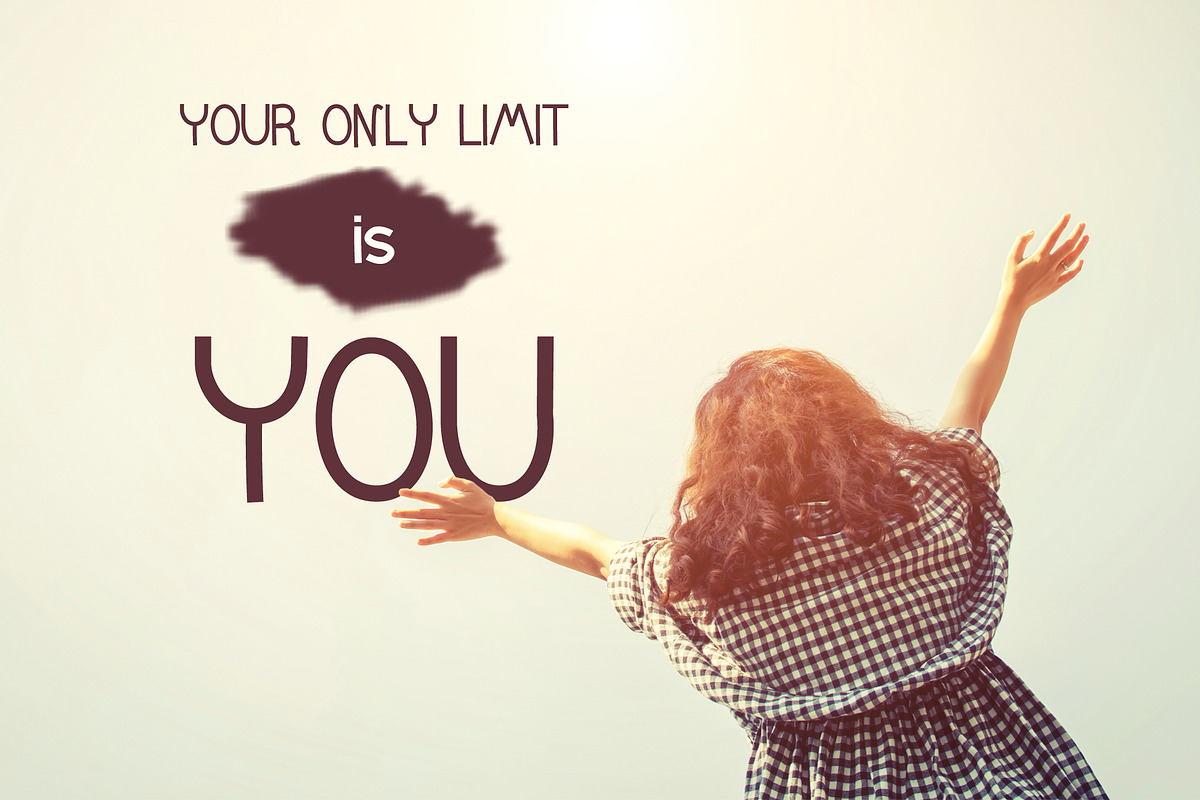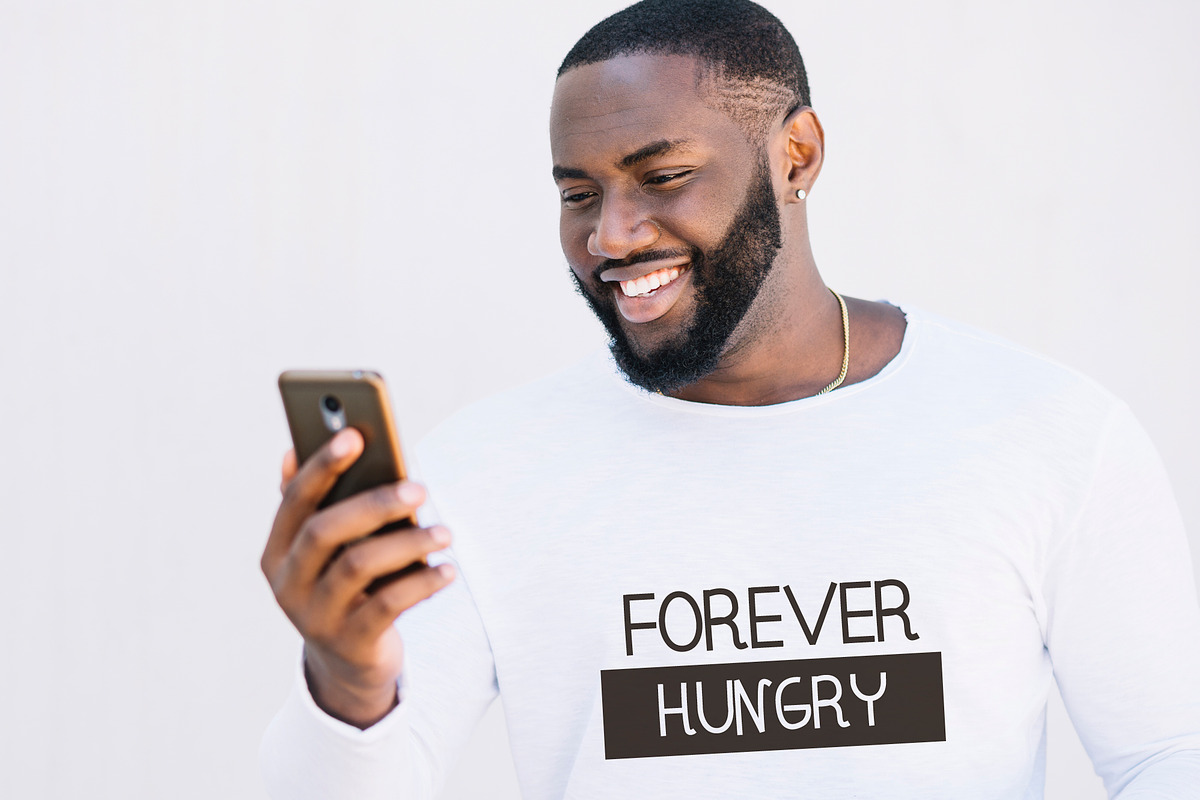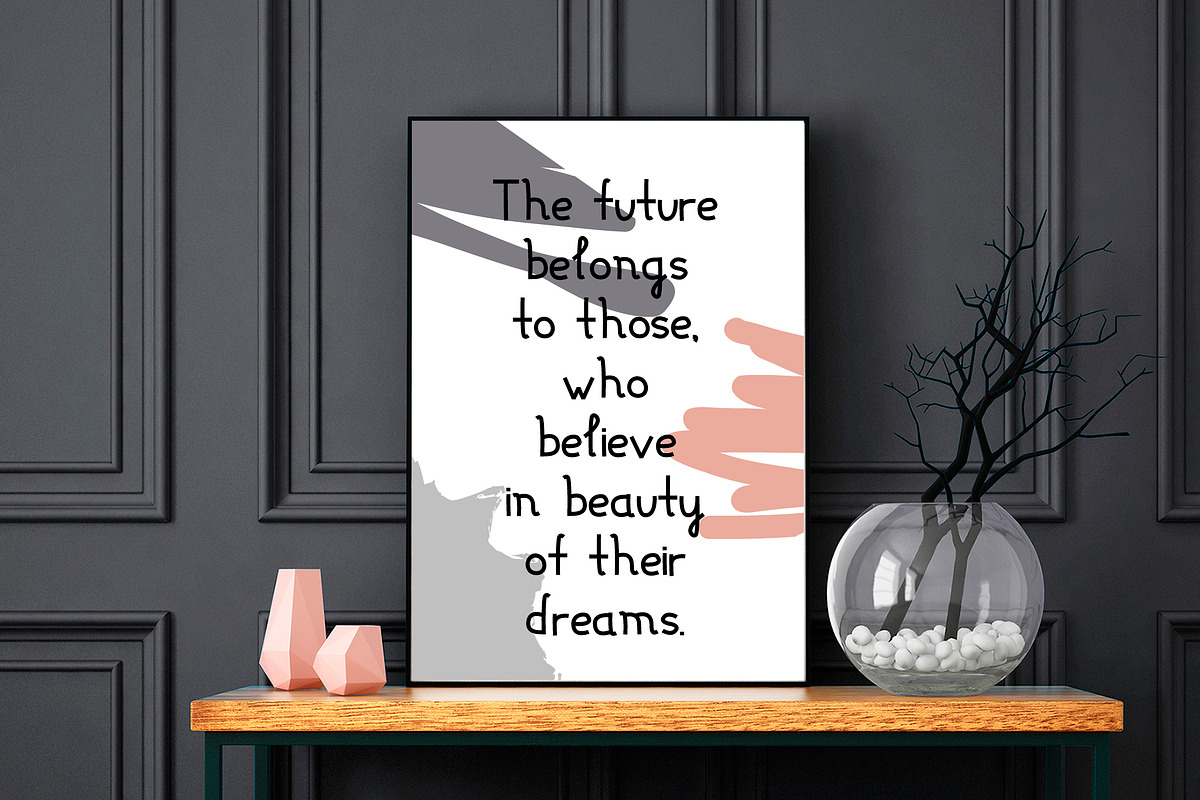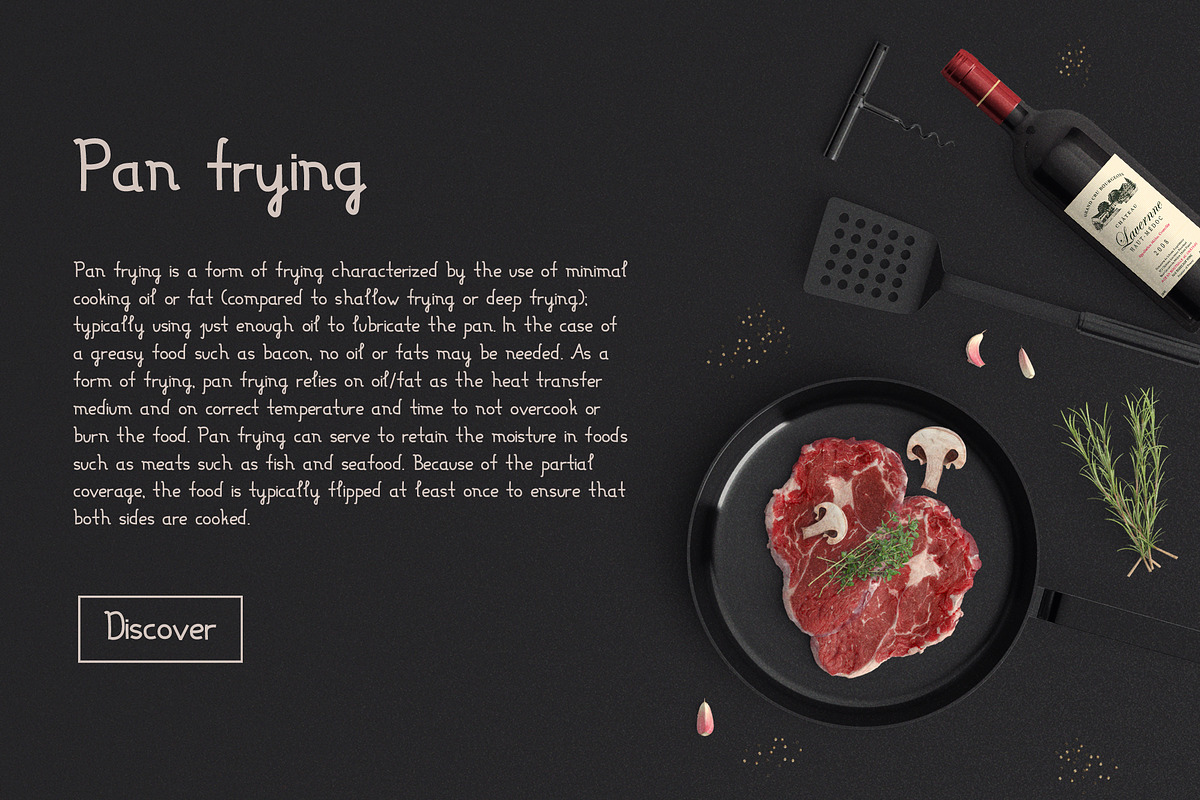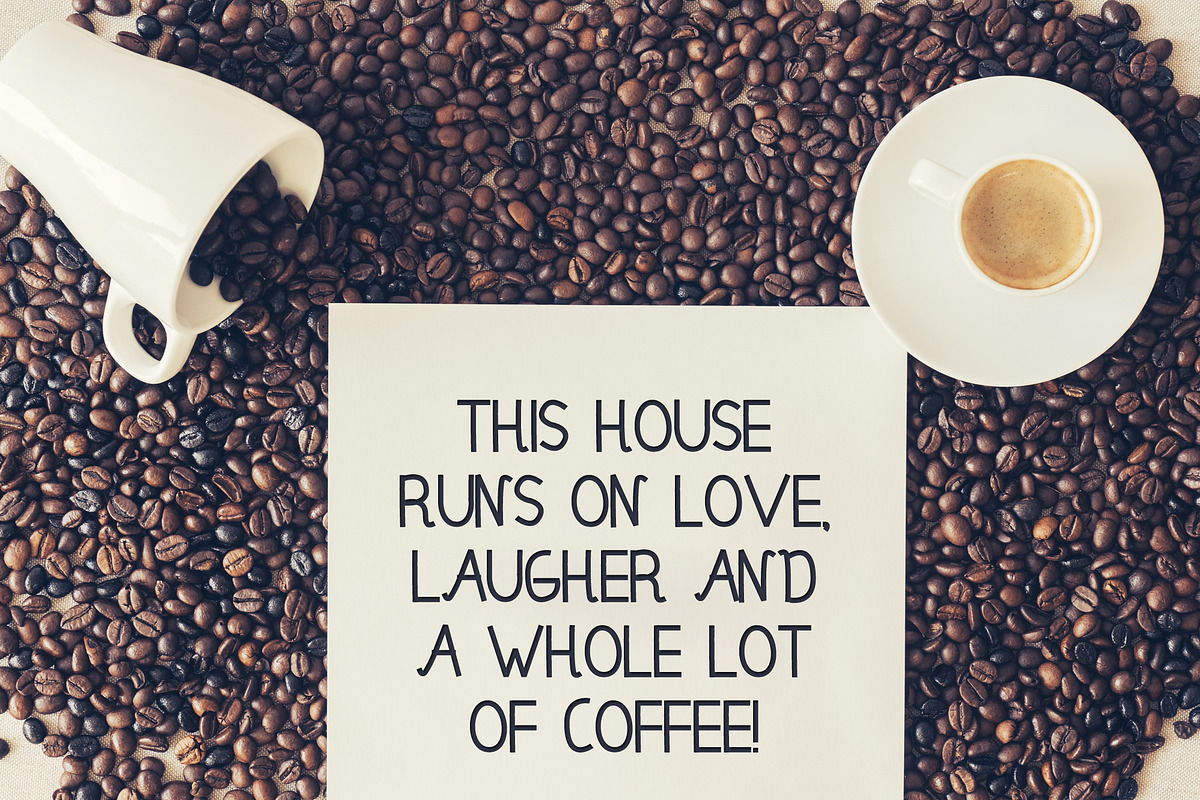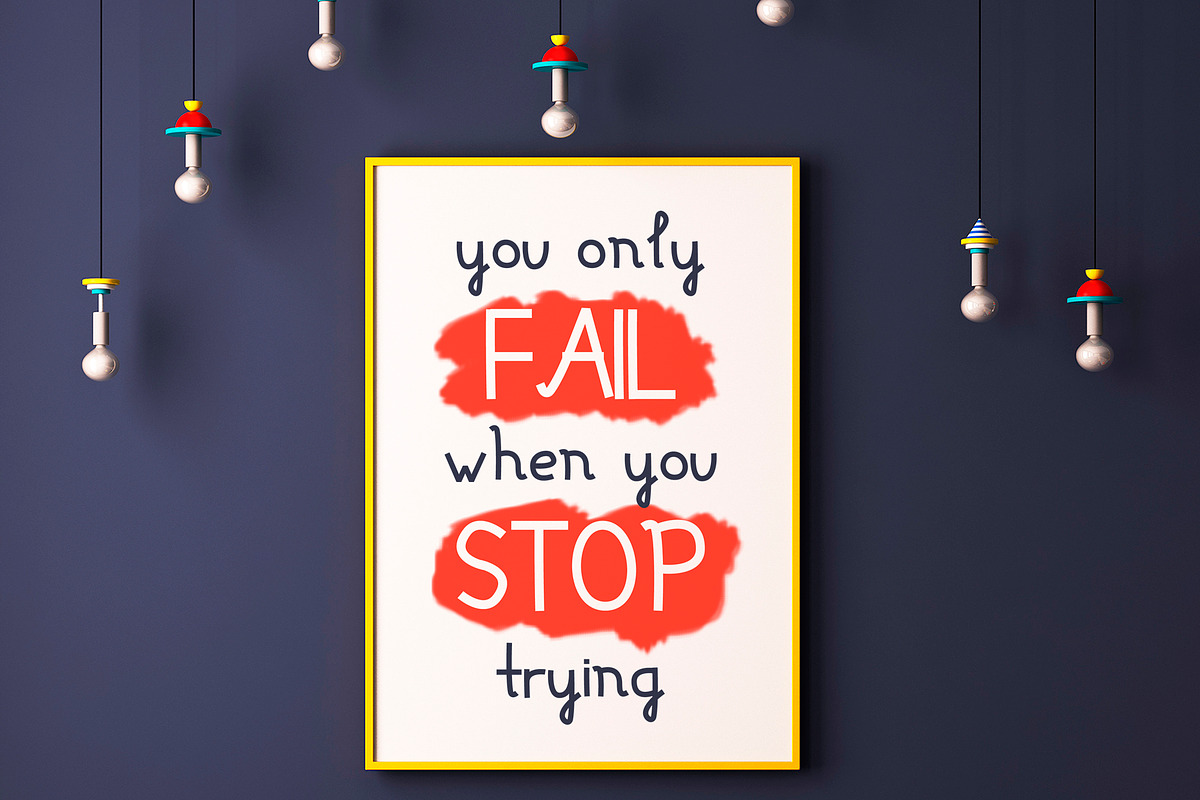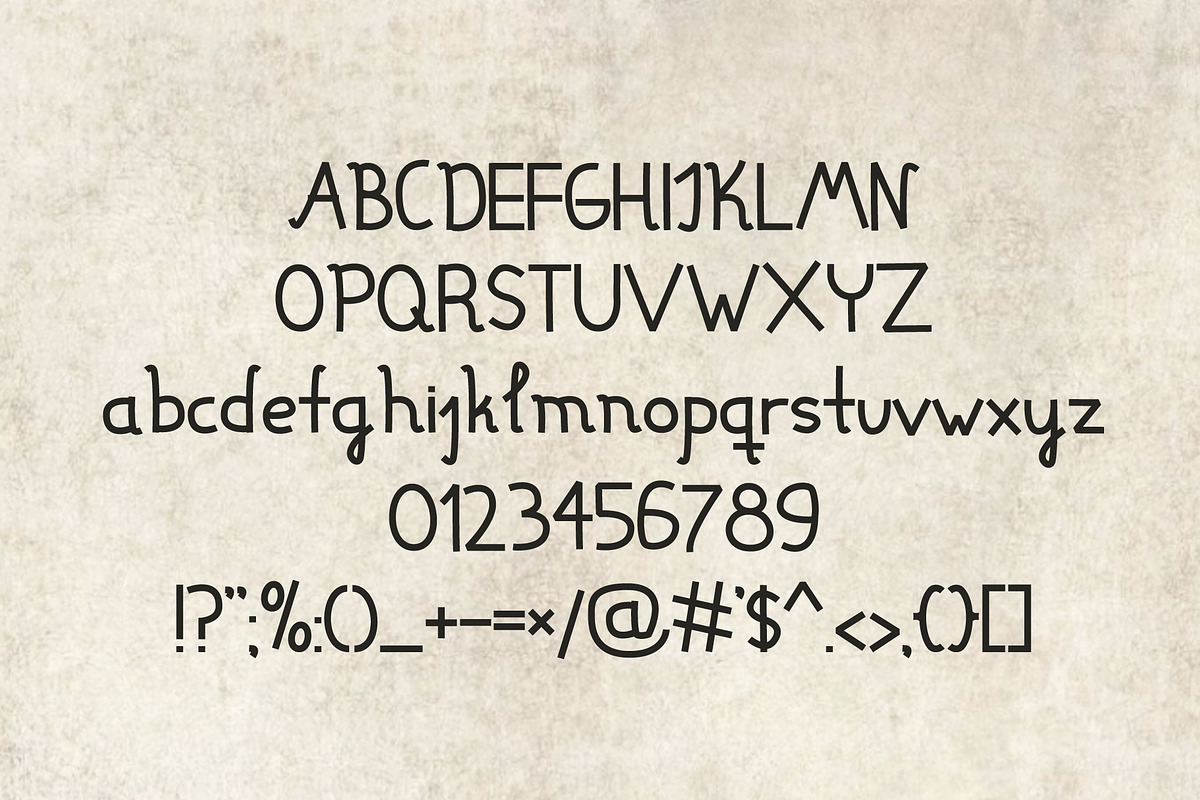
Font Edison (latin and cyrillic)
Edison's chopped font is perfect for both large texts and promotional offers. The font supports Latin and Cyrillic.
Font Edison (latin and cyrillic) by Alyonkalis fits naturally into Branding, posters, packaging, typography.